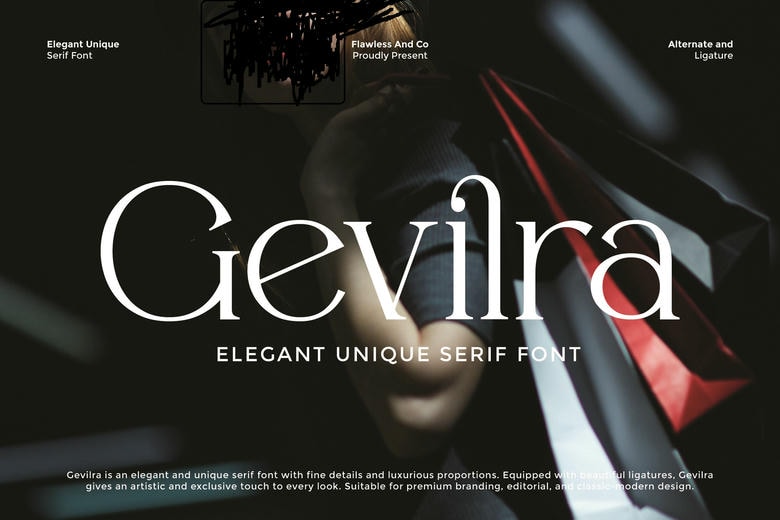
Gevilra Font
Gevilra is a stylish modern serif font with a classical elegance and at the same time a strongly contemporary touch. It has delicate curves, high contrast strokes and elegant ligatures that bring with them a feel of sophistication and luxury. Delicate and articulate, Gevilra carefully crafted alternates and stylistic features enhance the visual narration as one wonders how every single composition seems to be chosen and purposeful.
Be it on a higher end branding, fashion editorial, luxury packaging, or even typographically artful design, Gevilra sounds flawless in an enduring and stylish direction. It WORKS well in laid out spaces where it can create complexity and visual rhythm, depth, confidence and class which is injected in every project.